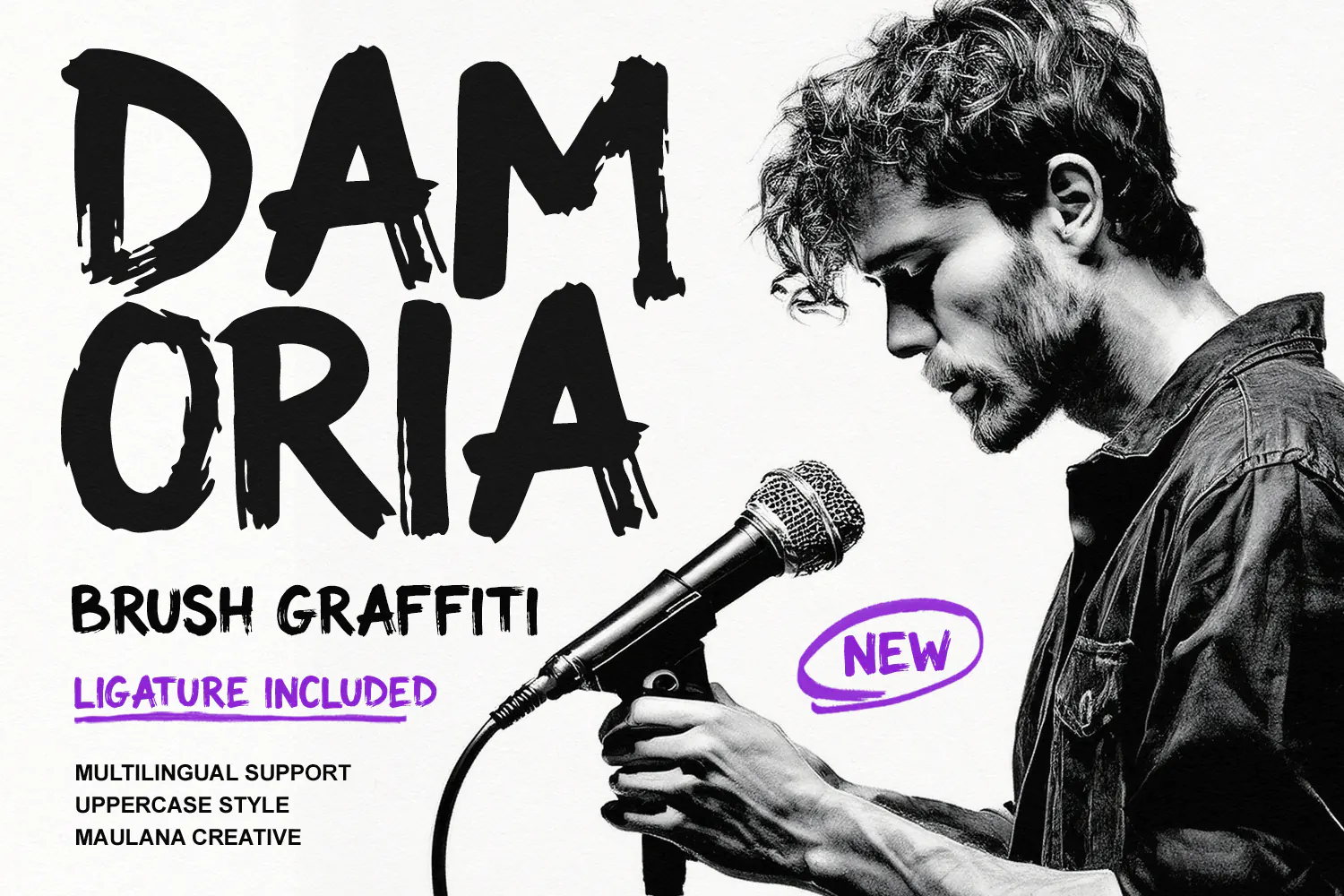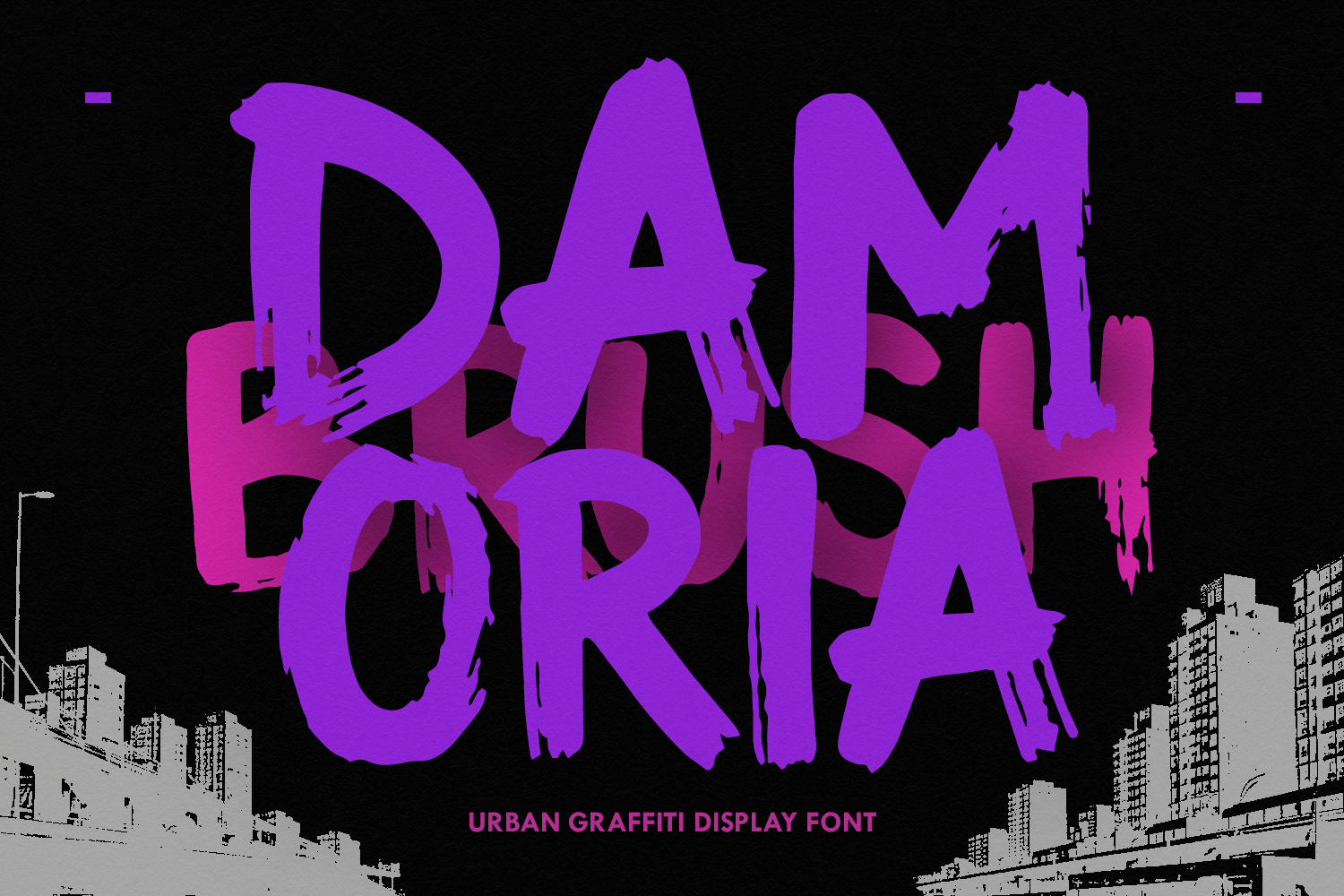
Damoria Brush Urban Graffiti Display Font
Damoria Brush is a bold, energetic display typeface designed with realistic painted brush strokes and rough texture details. Featuring striking uppercase letterforms and an expressive aesthetic, this font captures the raw intensity of urban wall art, modern graffiti, and dynamic graphic design. Every character delivers high-impact visual appeal, making it ideal for creating attention-grabbing headlines, poster concepts, album art cover designs, and event promo materials.
Engineered for maximum versatility across visual media, this typeface pairs raw textured edges with clear legibility. It provides strong branding elements for sports graphics, digital artwork, gaming overlays, modern packaging, and creative campaigns that demand a powerful, rugged aesthetic.